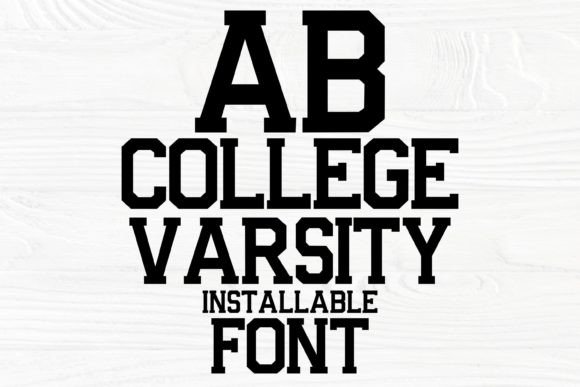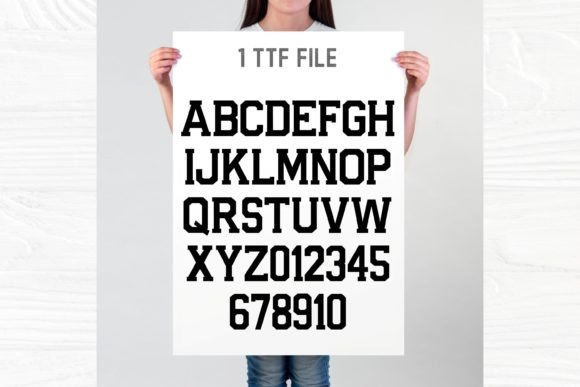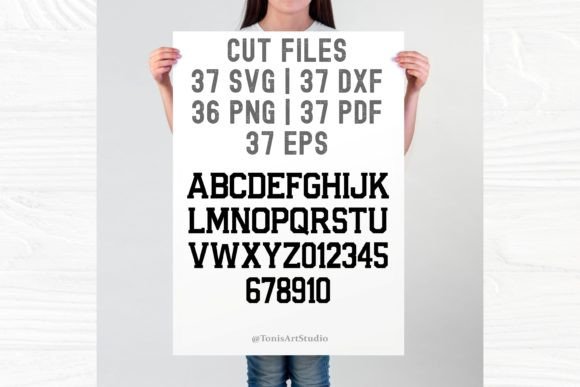
Unlock Your Creativity with College Varsity Font Svg
Are you a designer, crafter, or DIY enthusiast looking for a unique and stylish font to elevate your projects? Look no further! Our College Varsity Font Svg is here to revolutionize your crafting experience. This versatile font set is perfect for adding a sporty and chic touch to your creations, making them stand out from the crowd.
What is College Varsity Font Svg?
Our College Varsity Font Svg is a carefully crafted collection of stylish college font letters, designed to bring a touch of athletic elegance to your projects. This font set is perfect for designers, crafters, and DIY enthusiasts who want to add a personalized and sporty flair to their work.
Features of College Varsity Font Svg
- Versatile Design: Our College Varsity Font Svg is designed to be versatile and adaptable, making it perfect for a wide range of projects, from personalized gifts to custom apparel and home decor items.
Uses for College Varsity Font Svg
Our College Varsity Font Svg is perfect for a wide range of projects, including:
- Personalized Gifts: Add a touch of personality to your gifts, such as customized t-shirts, mugs, and phone cases.
- Custom Apparel: Create stylish and sporty apparel, such as jerseys, hoodies, and hats.
- Home Decor Items: Add a sporty touch to your home decor items, such as customized wall art, pillows, and blankets.
- Party Decorations: Create customized party decorations, such as banners, garlands, and signs.
Benefits of Using College Varsity Font Svg
By using our College Varsity Font Svg, you’ll enjoy a range of benefits, including:
- Unique and Stylish Designs: Our font set offers unique and stylish designs that will make your projects stand out.
- Endless Creative Possibilities: Our font set offers endless creative possibilities, allowing you to experiment with different designs and ideas.